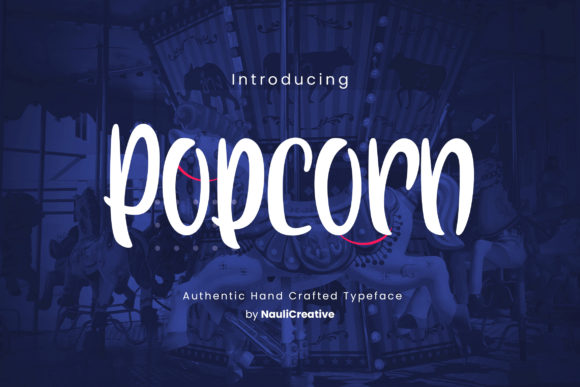
Welcome to the realm of culinary typography, where flavors dance upon the screen, and your taste buds tingle at the sight of words. Enter Popcorn Font, the ultimate display font ready to tantalize your visual appetite and make your Asian food-related designs sizzle with spice.
Picture this: a steaming bowl of ramen, its broth as rich and flavorful as the inky blackness of Popcorn Font. Each character dances across the screen like a delicate noodle, inviting you to slurp up a symphony of flavors. Or, imagine a plate of aromatic pad thai, the vibrant colors of the ingredients popping against the stark white background, just like the bold strokes of Popcorn Font, adding a touch of playful elegance to your culinary creations.
With Popcorn Font, you'll have the perfect ingredient to make your Asian-inspired designs burst with personality. Whether it's a menu, a blog post, or even a food-themed social media campaign, this font will transform your words into a feast for the eyes.
Picture the mouthwatering sizzle of a sizzling wok, the vibrant hues of fresh vegetables dancing in a sea of savory sauce. Popcorn Font will capture the energy and excitement of these culinary delights, making your designs as irresistible as a plate of perfectly cooked gyoza.
So, spice up your designs, add a dash of flavor, and let Popcorn Font ignite your imagination. Let your designs be the talk of the town, the hottest dish on the menu, and the font that everyone craves.